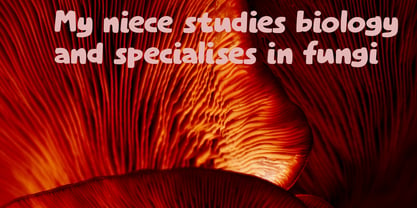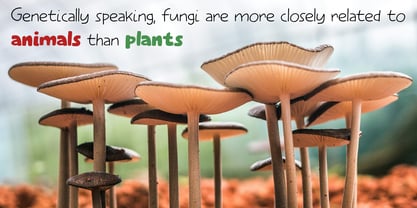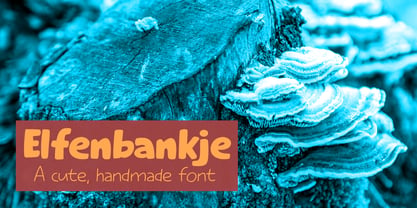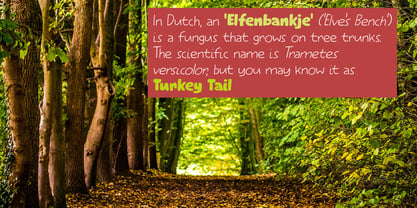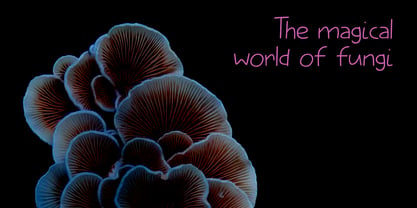
Elfenbankje Pro
by Hanoded
Elfenbankje in Dutch means: ‘little bench for Elves’. It is a kind of fungus that grows in deciduous forests all over the world and is know in English as ‘Turkey Tail’. I came up with this name, because I often take my kids for a walk in the forest and they love to use an app called Obsidentify, where you can upload a picture of a leaf, a bug or a mushroom. The app will then tell you what you found! We discovered a lot of ‘Elfenbankjes’ in the forest, so there you have it!
Elfenbankje is a nice font family, consisting of a ‘fat’ and a ‘light’ version, which work together well.
Hanoded is run by Dutchman David Kerkhoff. His fonts are a mishmash of styles, as he just creates whatever pops into his head. You will find a lot of brush fonts in his collection, as his favourite tools are brushes and Chinese ink, with cartoon style fonts and script fonts complementing his repertoire. Aside from making fonts, David occasionally guides tours in far-flung places, renovates his '30's house and tries reasoning with his wife and (teenage) kids. Not an easy task!